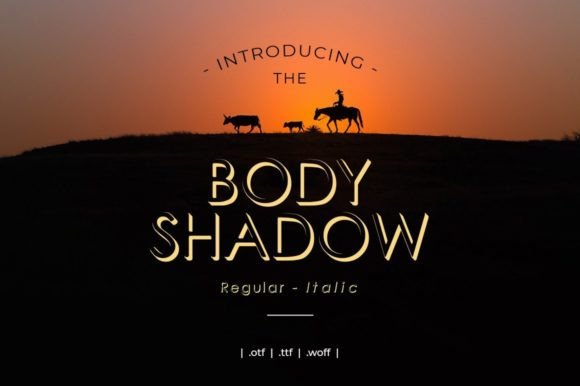
Embark on a typographic odyssey with Bodyshadow, a display font that's an artist's muse and a designer's delight. This captivating creation from the font foundry of yantodesign is a visual symphony that dances across your screen, leaving a trail of aesthetic wonder in its wake.
Bodyshadow isn't just a font; it's an experience. Each letterform is a carefully crafted work of art, a harmonious blend of sharp edges and flowing curves that capture the eye and ignite the imagination. Its bold, distinctive style adds an instant touch of drama and intrigue to any design, making it the perfect choice for projects that demand attention.
Imagine your words taking center stage, adorned with the elegance and charm of Bodyshadow. Logos, posters, social media graphics, and branding materials will come alive with a vibrancy and personality that's impossible to ignore. Bodyshadow's versatility knows no bounds, seamlessly adapting to a myriad of design aesthetics, from minimalist chic to retro nostalgia.
With Bodyshadow in your design arsenal, you'll discover a font that's not just beautiful, but also remarkably versatile. Its ability to effortlessly elevate any creation makes it a must-have for designers seeking to make a lasting impact.
But Bodyshadow isn't just about aesthetics; it's about evoking emotions, sparking conversations, and leaving an indelible mark on your audience. Its unique character adds a layer of depth and intrigue to your designs, captivating viewers and drawing them into your creative vision.
So why settle for ordinary when you can embrace the extraordinary? Unleash the power of Bodyshadow and embark on a journey where imagination meets reality, where words dance and stories come alive. Let Bodyshadow be your font of choice, and experience the transformative power of exceptional typography.